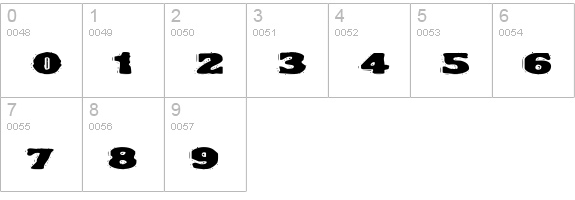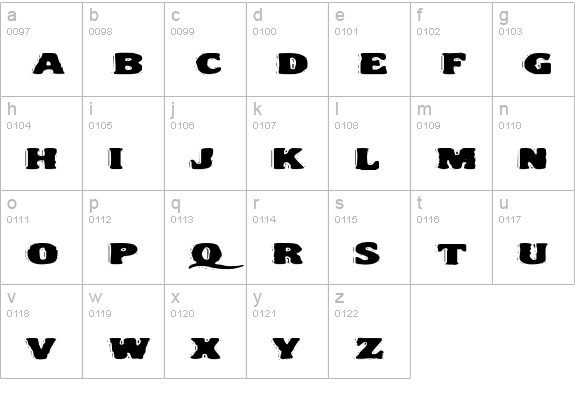
VTC NightOfTheDrippyLowCaps Font Details
Introducing VTC NightOfTheDrippyLowCaps font, a mesmerizing display font that will add a touch of whimsy and uniqueness to any design project. This font boasts charmingly imperfect letterforms with a playful, drippy effect that gives it a distinct and captivating appeal. VTC NightOfTheDrippyLowCaps font is perfect for creating eye-catching headlines, logos, posters, invitations, and more. Its organic and fluid design creates a sense of movement and spontaneity, making it a fantastic choice for projects that require a touch of creativity and originality. With its wide range of characters, including both uppercase and lowercase letters, numerals, punctuation marks, and special glyphs, VTC NightOfTheDrippyLowCaps font offers versatility and flexibility for all your design needs. Whether you're working on a vintage-inspired project, a children's book, or a quirky branding campaign, this font will bring your ideas to life in a truly unique way. What's more, VTC NightOfTheDrippyLowCaps font is freely available to download at FontsMarket.com. This means that you can enjoy the benefits of this captivating font without any financial constraints. Simply head over to FontsMarket.com and start exploring the possibilities that VTC NightOfTheDrippyLowCaps font has to offer. So, why settle for ordinary when you can elevate your designs with the enchanting charm of VTC NightOfTheDrippyLowCaps font? Download it for free today and let your creativity flow with this one-of-a-kind typeface.